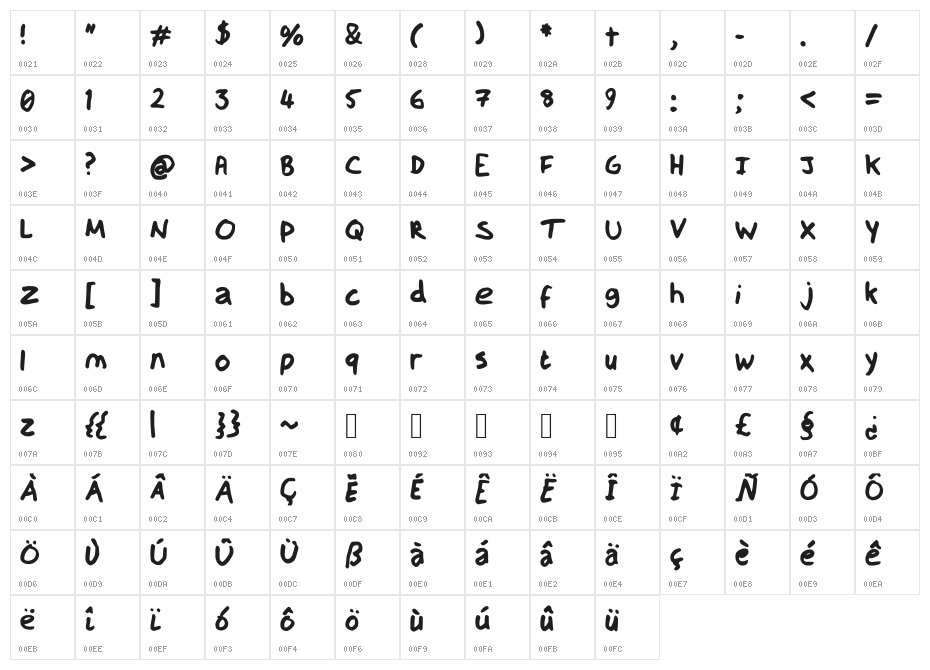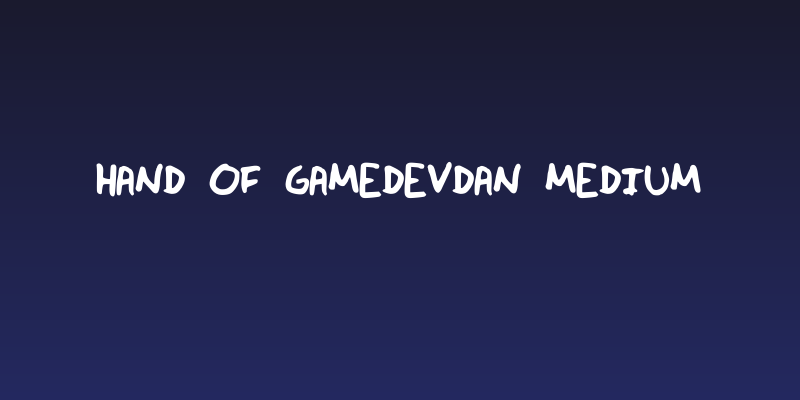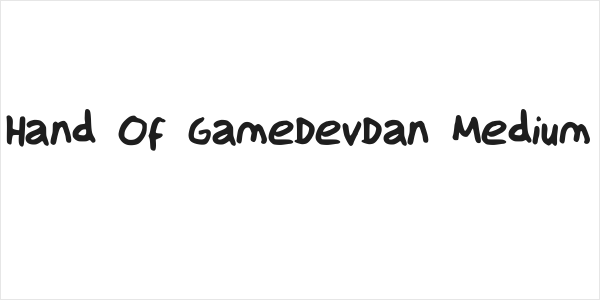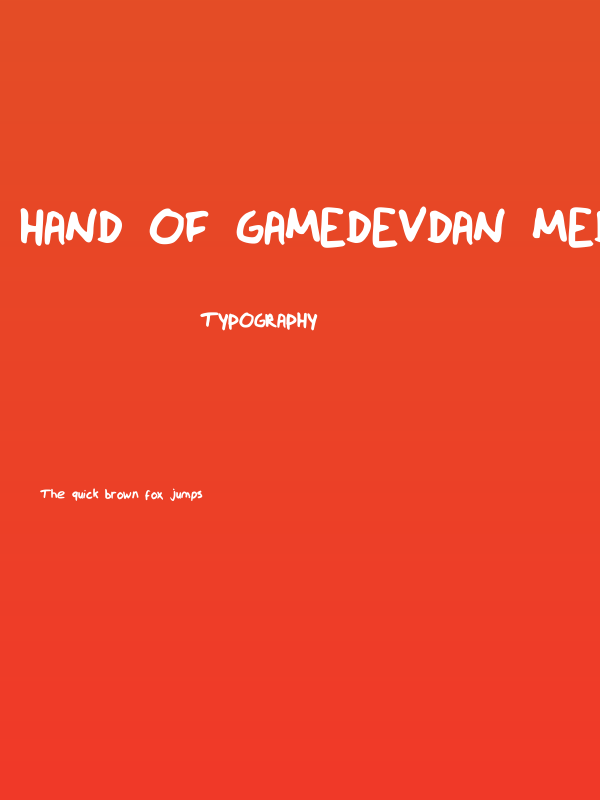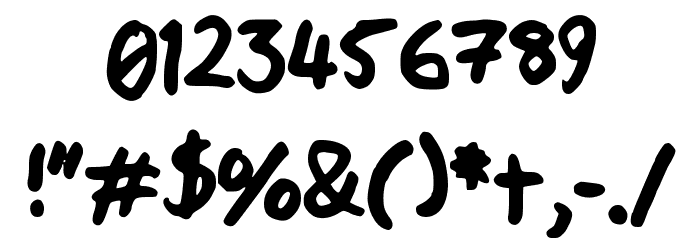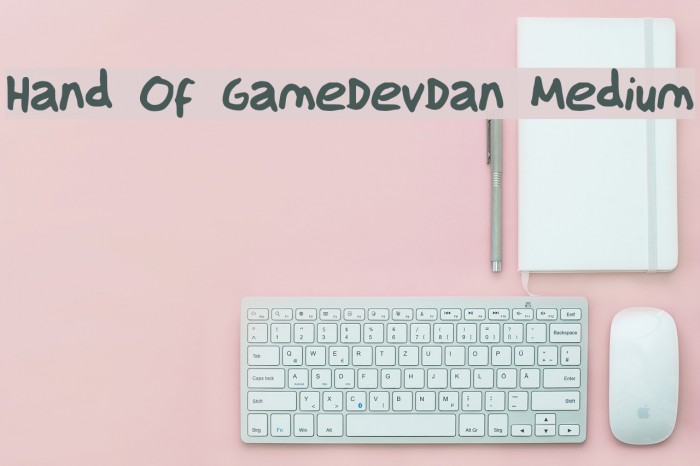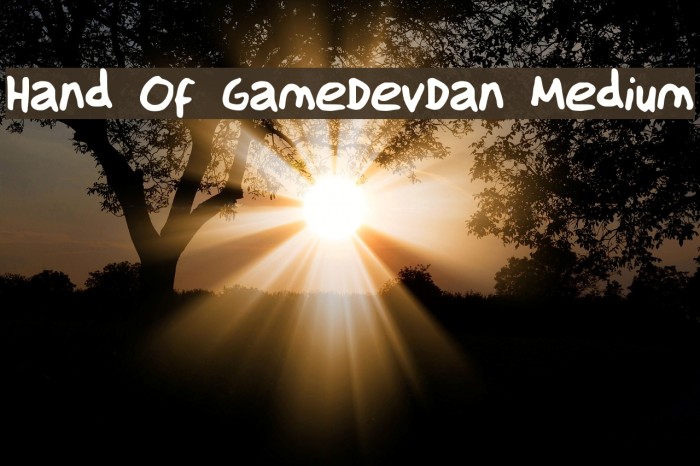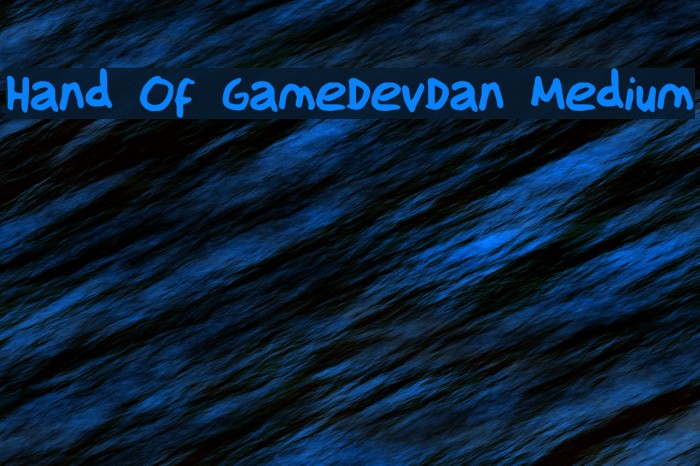
Hand Of GameDevDan Medium Font
Hand Of GameDevDan Medium Description
This font exudes a playful and casual handwritten style, characterized by its bold and rounded letterforms. The strokes are thick and consistent, giving it a strong presence on the page. Each character has a slightly irregular shape, adding to its informal and friendly appearance. The font maintains a uniform weight throughout, ensuring readability while conveying a sense of spontaneity and creativity. Its distinct style makes it suitable for projects that aim to capture a youthful or artistic vibe.
| Proposed Projects | Ideal for children's books, creative posters, casual branding, and social media graphics. |